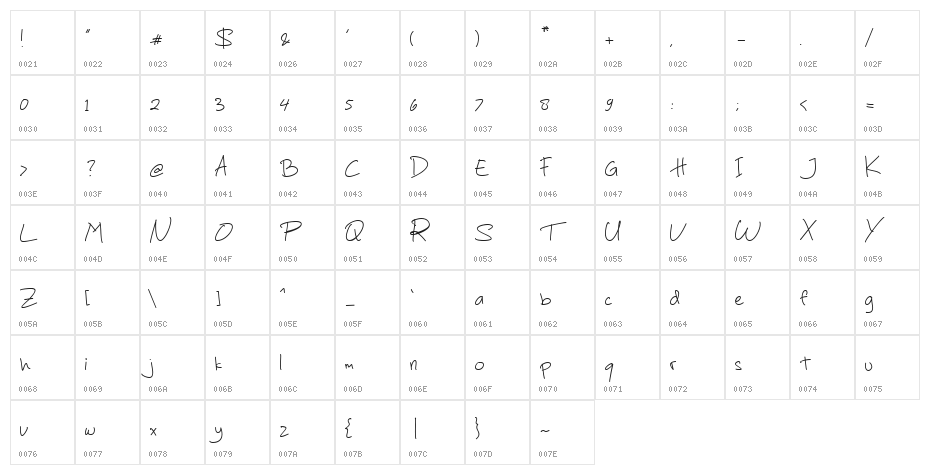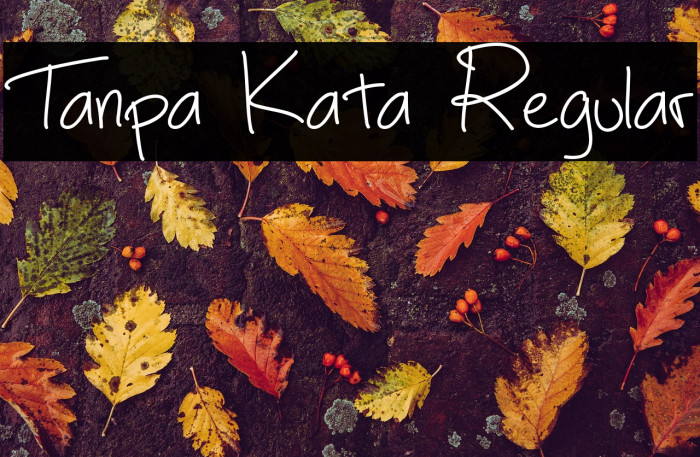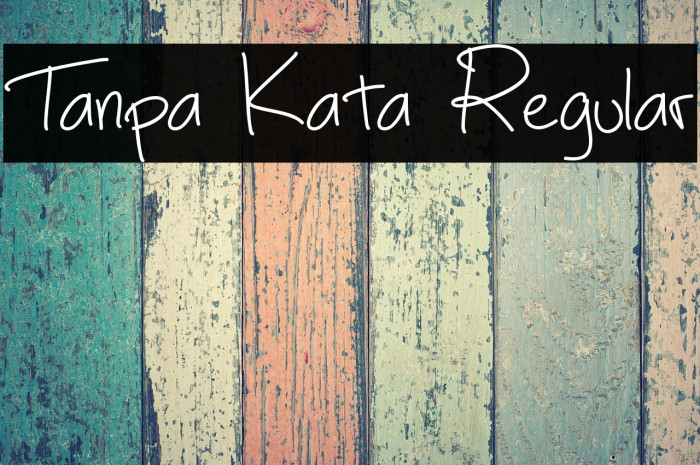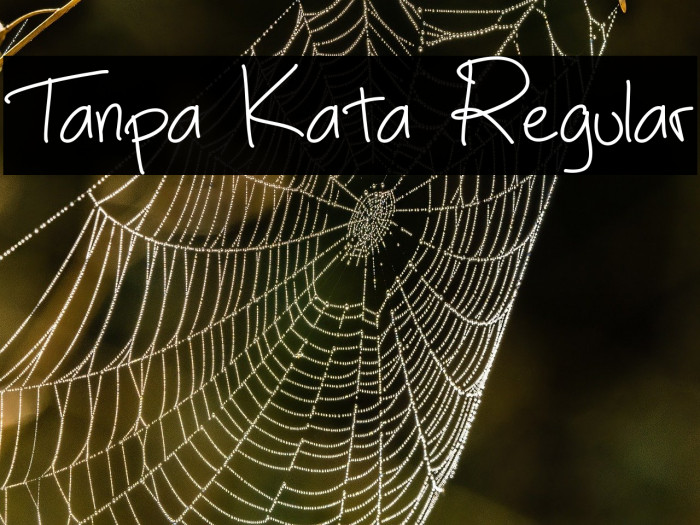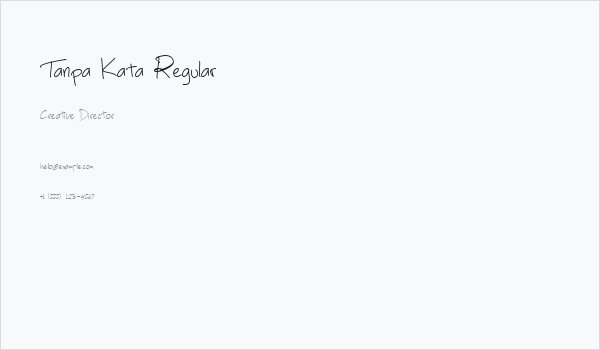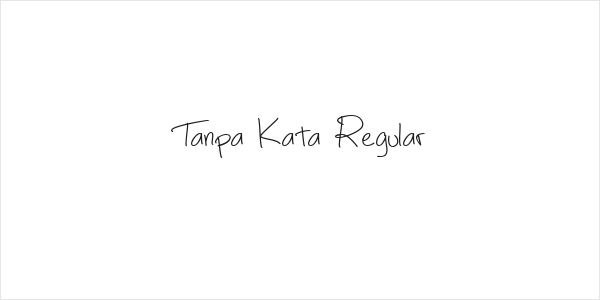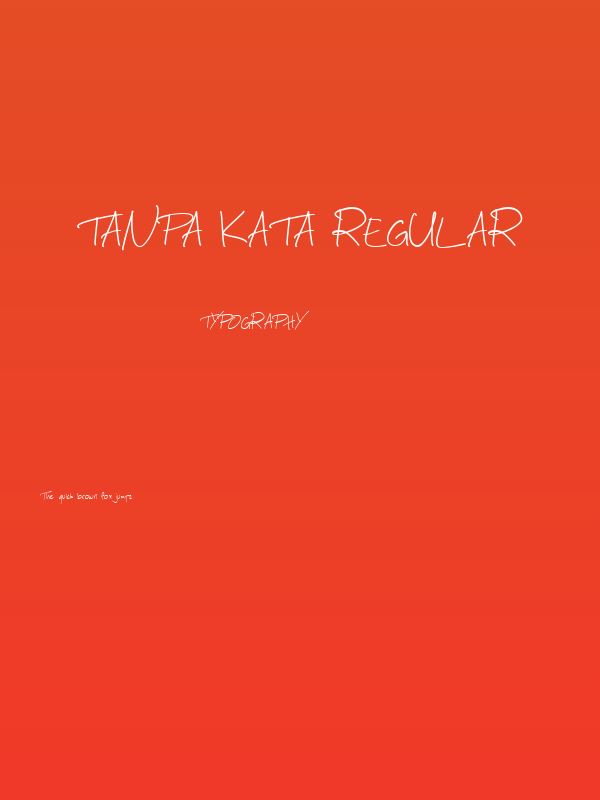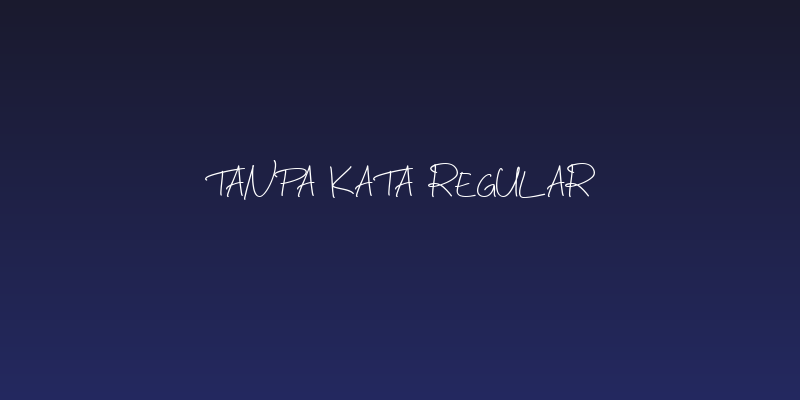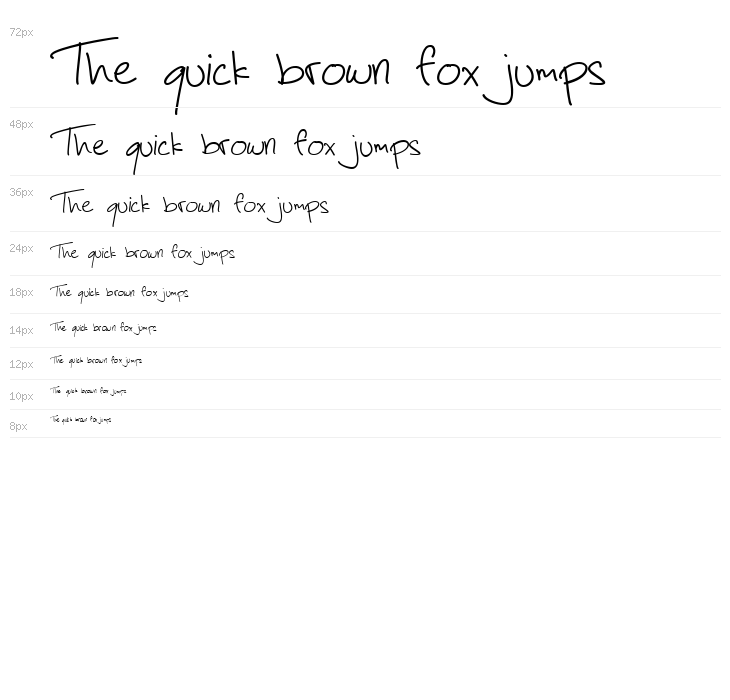
Tanpa Kata Regular Font
Tanpa Kata Regular Description
This font features a casual, handwritten style that exudes a sense of informality and approachability. The characters are slightly slanted, giving them a dynamic and lively appearance. Each letter is distinct, with a playful yet legible form that maintains consistency across both uppercase and lowercase letters. The numbers and special characters follow the same handwritten aesthetic, ensuring a cohesive look throughout. The strokes are smooth and fluid, with a medium contrast that adds to the overall readability. This font is perfect for projects that require a personal touch or a relaxed vibe.
| Proposed Projects | Ideal for greeting cards, personal blogs, informal invitations, and creative projects that require a personal touch. |